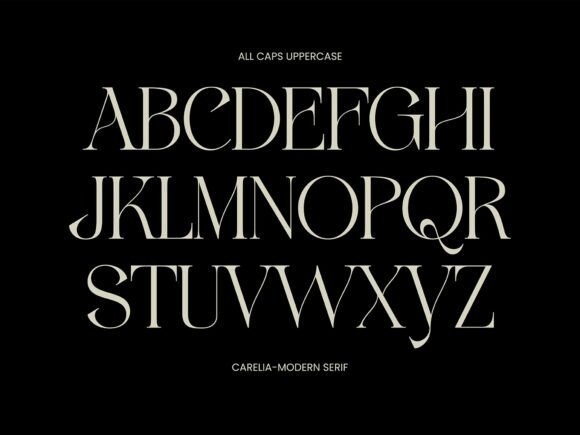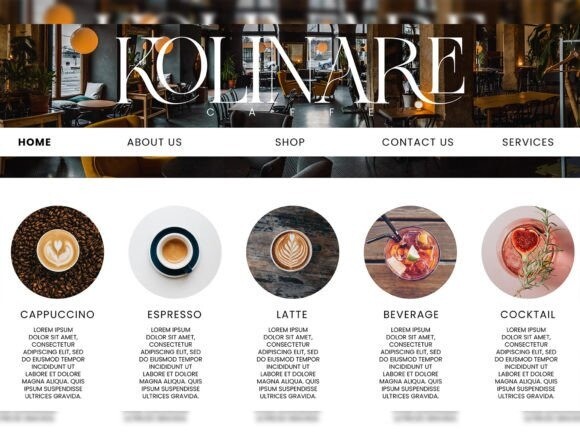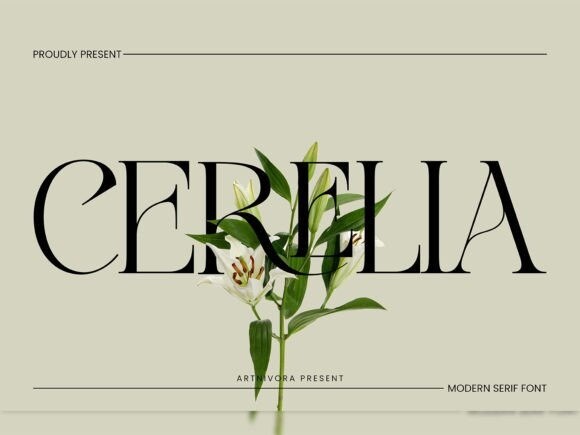
Cerelia Font
Cerelia Font: A sleek and modern serif font. Clean and stylish, perfect for a contemporary touch. Great for adding a sophisticated vibe to your projects. Simple, yet chic—Cerelia is your go-to choice for a modern typographic experience.